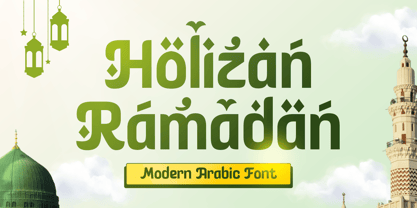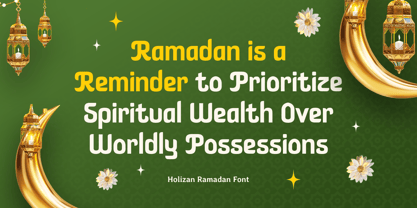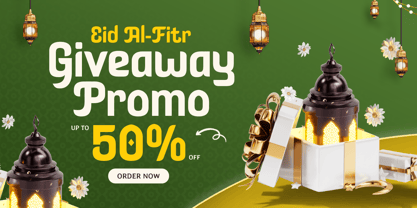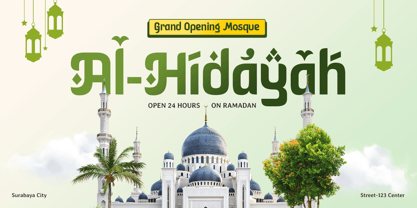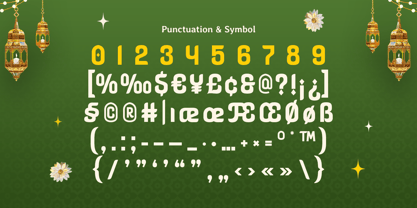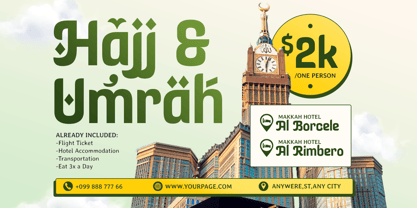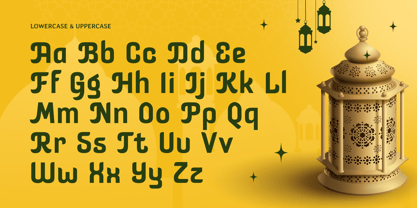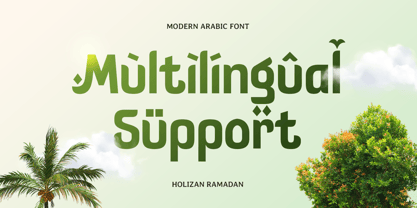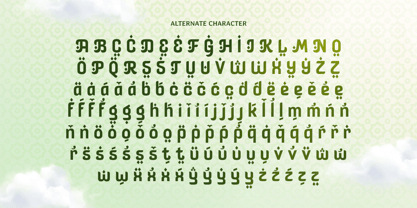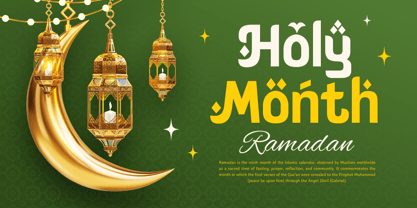
Holizan Ramadan
Holizan Ramadan - Modern Arabic Font
Holizan Ramadan is a beautifully crafted modern Arabic font that brings tradition and sophistication to your design projects. With its balanced curves and contemporary aesthetic, this font is ideal for creating impactful designs for Ramadan-themed greetings, branding, and cultural events. Holizan perfectly bridges traditional Arabic script with a modern design sensibility.
Drawing inspiration from the holy month of Ramadan, Holizan’s clean and elegant forms evoke a sense of serenity and grace. Whether used for posters, event invitations, or Islamic branding, this font seamlessly adapts to both digital and print media, ensuring a professional and cultural touch to your work.
Add a touch of cultural elegance to your designs with Holizan Ramadan, a modern Arabic font that resonates with the essence of tradition and contemporary design.
Holizan Ramadan Modern Arabic Font Features:
• Elegant and Balanced Arabic Script
• Uppercase and Lowercase
• Opentype Features
Multilingual Characters available for:
Afrikaans, Albanian, Asu, Basque, Bemba, Bena, Breton, Chiga, Cornish, Dutch, English, Estonian, Filipino, Finnish, Friulian, Galician, German, Gusii, Indonesian, Irish, Italian, Kabuverdianu, Kalenjin, Kinyarwanda, Luo, Luxembourgish, Luyia, Machame, Makhuwa-Meetto, Makonde, Malagasy, Manx, Morisyen, North Ndebele, Nyankole, Oromo, Portuguese, Quechua, Romansh, Rombo, Rundi, Rwa, Samburu, Sango, Sangu, Scottish Gaelic, Sena, Shambala, Shona, Soga, Somali, Spanish, Swahili, Swedish, Swiss.